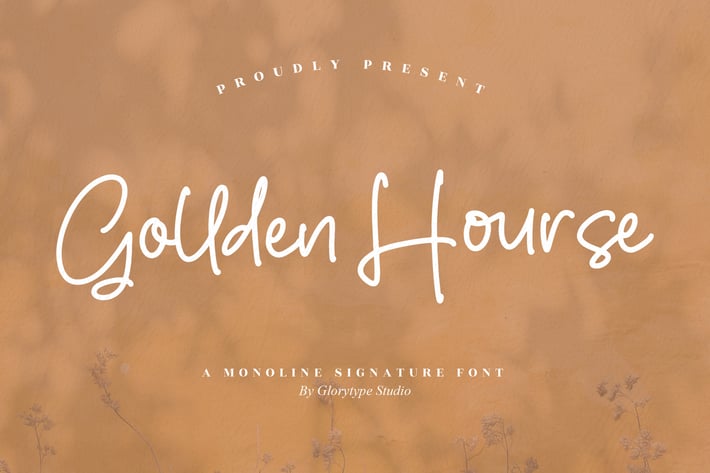
Golden Hourse Monoline Signature Font
Golden Hourse is a soft monoline signature font that brings a warm, handwritten charm to every design. With its smooth strokes, gentle curves, and naturally flowing lines, this typeface offers an elegant, relaxed aesthetic perfect for storytelling visuals and modern branding. Its subtle organic feel makes it a stylish choice for projects that need a personal, heartfelt touch.
Monoline signature handwriting style
Smooth curves with natural stroke flow
Elegant, clean letterforms for a premium look
Includes Regular & Italic variations
Branding & logo design
Wedding invitations
Photography overlays
Social media quotes
Lifestyle & editorial visuals
Modern product labels
Elegant title designs
Warm, soft, and effortlessly personal — Golden Hourse adds a delicate handwritten touch to any creative project.